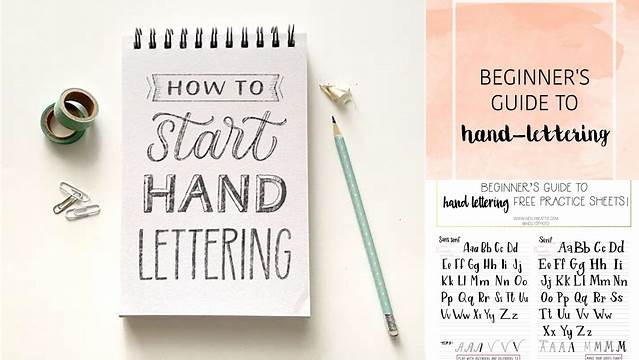
Draw Fonts By Hand: A Beginner's Guide
Hey there, font enthusiasts! Ever wanted to create your own unique fonts but felt intimidated? Well, guess what? You can totally learn how to draw fonts by hand, and this guide is here to show you how. We’ll break down the process into easy-to-follow steps, so you can start designing your own awesome typefaces in no time. Let’s dive in!
1. Understanding Font Anatomy
Before you even think about picking up a pencil, it's crucial to understand the anatomy of a font. This knowledge will serve as the foundation for your hand-drawn fonts. Think of it like learning the parts of a car before you try to build one – you need to know what everything is called and how it functions! The baseline is the imaginary line upon which most letters sit. Then you have the x-height, which is the height of the lowercase 'x' – this measurement heavily influences the overall look and feel of your font. Ascenders are the parts of lowercase letters that extend above the x-height (like the 'b', 'd', and 'h'), while descenders drop below the baseline (think 'g', 'p', and 'q'). Finally, the serif are the small decorative strokes at the end of letters in some fonts, and understanding the difference between serif, sans-serif, script, and display fonts will help you make informed design choices. Familiarizing yourself with these key elements will not only make the drawing process easier but will also allow you to create more consistent and professional-looking fonts.
2. Choosing Your Tools for Hand-Drawn Fonts
Selecting the right tools is paramount when learning how to draw fonts by hand. While you don't need fancy equipment to get started, having the right materials can significantly improve your experience and the quality of your final product. For sketching and initial designs, a simple pencil (like a 2B or HB) and a good eraser are essential. These allow you to easily make corrections and refine your letterforms. For inking, consider using fineliner pens in various sizes. Brands like Micron and Staedtler offer excellent options that provide consistent lines and archival quality ink. Alternatively, brush pens can add a dynamic and expressive touch to your fonts, especially for script or calligraphy styles. Paper choice also matters. Smooth paper is ideal for fineliners, while textured paper can add character when using brush pens. Don't forget a ruler and a set of French curves to help create consistent baselines and smooth curves. Experimenting with different tools is part of the fun, so don't be afraid to try out various pens, pencils, and papers to find what works best for you and your desired font style. Remember, the best tools are the ones that feel comfortable in your hand and help you achieve the look you're aiming for.
3. Basic Lettering Styles for Beginners
When starting out with how to draw fonts by hand, it's best to familiarize yourself with basic lettering styles. These serve as a great foundation before you delve into more complex and unique designs. Block lettering, also known as sans-serif, is a simple and clean style characterized by its uniform stroke width and lack of serifs. It's perfect for beginners because it focuses on clear, geometric shapes. Serif fonts, on the other hand, feature small decorative strokes at the end of each letter, giving them a more traditional and elegant appearance. Roman lettering is a classic serif style that's widely used in books and newspapers. Script fonts mimic handwriting and cursive styles, offering a more fluid and personal touch. They can range from elegant calligraphy to casual brush lettering. Display fonts are designed to grab attention and are often used for headlines and posters. They come in a wide variety of styles, from bold and quirky to ornate and decorative. By practicing these basic styles, you'll develop a better understanding of letterforms and the fundamental principles of typography. This knowledge will empower you to create your own unique and expressive hand-drawn fonts.
4. Sketching Your Font: Guidelines and Proportions
Before you start drawing individual letters, setting up guidelines is essential for maintaining consistency and proportion in your hand-drawn fonts. When learning how to draw fonts by hand, begin by drawing a baseline, x-height line, ascender line, and descender line. These lines will help you control the height and vertical spacing of your letters. The baseline is where the main body of your letters will sit, while the x-height determines the height of your lowercase letters. Ascenders extend above the x-height (like the top of the 'h'), and descenders extend below the baseline (like the bottom of the 'p'). Pay close attention to the proportions of your letters. The ratio between the x-height and the ascender/descender height can significantly impact the overall look of your font. Use a ruler to ensure that your guidelines are consistent and accurate. Once your guidelines are in place, lightly sketch the basic shapes of your letters, focusing on their overall form and structure. Don't worry about details at this stage; just aim for a rough outline that captures the essence of each letter. Remember, sketching is an iterative process, so don't be afraid to experiment and make adjustments until you're happy with the overall appearance of your font.
5. Refining Letterforms: Stroke Weight and Consistency
Once you have your basic letterforms sketched out, the next step is to refine them by focusing on stroke weight and consistency. Maintaining a consistent stroke weight throughout your font is crucial for a polished and professional look. When you how to draw fonts by hand, start by deciding on the desired stroke weight for your font. This will depend on the style you're aiming for – a bold font will have thicker strokes, while a light font will have thinner strokes. Use a ruler or a set of calipers to measure the stroke width of your letters and ensure that it remains consistent. Pay close attention to the curves and junctions of your letters, as these areas can be tricky to get right. Make sure that the strokes flow smoothly and that there are no abrupt changes in thickness. Use a light table or tracing paper to compare your letters and identify any inconsistencies. Refine your letterforms by adding details and correcting any errors. This is where you can really bring your font to life and give it its unique character. Remember, consistency is key, so take your time and pay attention to the details.
6. Creating Uppercase and Lowercase Alphabets
Crafting both uppercase and lowercase alphabets is a fundamental aspect of designing a complete font. When delving into how to draw fonts by hand, it's important to understand the relationship between uppercase and lowercase letters. Uppercase letters, also known as capitals, are generally larger and more ornate than their lowercase counterparts. They often serve as the visual anchors of a font, so it's important to pay close attention to their design. Lowercase letters, on the other hand, make up the bulk of most text and therefore play a crucial role in readability. When designing your uppercase and lowercase alphabets, consider the overall style and personality of your font. Do you want it to be elegant and sophisticated, or playful and whimsical? The style of your letters should reflect the overall tone you're trying to convey. Pay attention to the proportions of your letters and ensure that they are consistent with each other. The height and width of your uppercase letters should be proportional to the height of your lowercase letters. Experiment with different letterforms and try out various combinations until you find a design that you're happy with. Remember, creating a complete alphabet is a time-consuming process, so be patient and persistent. The more you practice, the better you'll become at designing beautiful and functional fonts.
7. Designing Numbers and Special Characters
Beyond letters, numbers and special characters are essential components of a fully functional font. The process of how to draw fonts by hand isn't complete without addressing these elements. Numbers should be designed to complement the style and proportions of your letters. Consider the overall aesthetic of your font and ensure that your numbers are consistent with that style. Pay attention to the height and width of your numbers and make sure they are proportional to your letters. Special characters, such as punctuation marks, symbols, and accented letters, are also important to consider. These characters can add personality and functionality to your font. Experiment with different designs and try out various combinations until you find a set of characters that you're happy with. Remember, the goal is to create a cohesive and consistent font that is both visually appealing and easy to read. Designing numbers and special characters can be a challenging but rewarding process. It's an opportunity to showcase your creativity and attention to detail. So, take your time, experiment with different ideas, and don't be afraid to push the boundaries of traditional typography.
8. Spacing and Kerning Your Hand-Drawn Font
Spacing and kerning are critical aspects of typography that greatly impact the readability and visual appeal of your font. After you how to draw fonts by hand, getting the spacing right is important. Spacing refers to the overall amount of space between letters, while kerning refers to the adjustment of space between specific pairs of letters. Proper spacing ensures that your letters are neither too crowded nor too far apart, while proper kerning ensures that the space between letters is visually balanced. When spacing your font, start by setting a general spacing value that looks comfortable and consistent across all your letters. Then, adjust the spacing between individual pairs of letters as needed. Pay particular attention to letter combinations that tend to look too crowded or too far apart, such as 'AV', 'WA', and 'TO'. Kerning is a meticulous process that requires a keen eye for detail. It's best to kern your font on a computer using professional font editing software. However, you can also practice kerning by hand by printing out your font and using a pencil to manually adjust the spacing between letters. Remember, the goal is to create a font that is both visually pleasing and easy to read. Proper spacing and kerning are essential for achieving this goal.
9. Digitizing Your Hand-Drawn Font
Digitizing your hand-drawn font is the process of converting your physical drawings into a digital format that can be used on computers and other devices. Now that you know how to draw fonts by hand, the next step is to digitize it. There are several ways to digitize your font, depending on your budget and technical skills. The simplest method is to scan your drawings and use image editing software, such as Adobe Photoshop or GIMP, to clean up the images and convert them into a vector format. However, this method can be time-consuming and may not produce the best results. A more efficient method is to use font editing software, such as FontLab Studio or Glyphs, to trace your drawings and create a digital font. These programs offer a wide range of tools and features for creating and editing fonts, including automatic tracing, kerning, and hinting. Digitizing your font can be a challenging but rewarding process. It's an opportunity to bring your hand-drawn creations to life and share them with the world. So, take your time, experiment with different techniques, and don't be afraid to ask for help if you get stuck.
10. Using Font Editing Software (FontLab, Glyphs)
Font editing software is an essential tool for any serious font designer. Programs like FontLab Studio and Glyphs offer a wide range of features and tools for creating, editing, and refining fonts. If you want to know how to draw fonts by hand and bring it to the digital world, this is how. These programs allow you to import your hand-drawn letterforms, trace them accurately, and then fine-tune their shapes and spacing. They also provide tools for kerning, hinting, and generating font files in various formats. FontLab Studio is a powerful and versatile font editor that's widely used by professional type designers. It offers a comprehensive set of features, including advanced drawing tools, automatic hinting, and support for OpenType features. Glyphs is a more streamlined and user-friendly font editor that's popular among beginners and hobbyists. It features a clean and intuitive interface, as well as a variety of helpful tools and tutorials. Using font editing software can greatly enhance the quality and efficiency of your font design process. It allows you to create professional-looking fonts that are both visually appealing and technically sound. So, if you're serious about font design, investing in font editing software is a worthwhile investment.
11. Creating Font Files (OTF, TTF)
Once you've designed and digitized your font, the next step is to create font files in a format that can be used on computers and other devices. The two most common font file formats are OTF (OpenType Font) and TTF (TrueType Font). These are important in understanding how to draw fonts by hand and actually use it. OTF is the newer and more advanced format, offering support for a wider range of features, including ligatures, alternate characters, and complex scripts. TTF is an older format that's still widely supported but lacks some of the advanced features of OTF. When creating font files, it's important to follow the proper specifications and guidelines to ensure that your font will work correctly on different operating systems and applications. Font editing software typically provides tools for generating font files in both OTF and TTF formats. These tools allow you to specify various settings, such as the font name, version number, and copyright information. Creating font files is a crucial step in the font design process. It's the culmination of all your hard work and creativity, and it allows you to share your font with the world.
12. Testing Your Font for Readability
Before you release your font to the world, it's important to test it thoroughly for readability. A font may look beautiful, but if it's difficult to read, it won't be very useful. Knowing how to draw fonts by hand means also knowing how to make it readable. Readability refers to how easily the letters can be distinguished from each other and how comfortable the text is to read. There are several factors that can affect readability, including the letterforms, spacing, kerning, and contrast. To test your font for readability, try using it in a variety of different contexts, such as body text, headlines, and captions. Print out samples of your font in different sizes and styles and ask other people to read them. Pay attention to any feedback you receive and make adjustments to your font as needed. You can also use online tools and resources to evaluate the readability of your font. These tools can analyze various aspects of your font, such as its x-height, stroke weight, and contrast ratio. Testing your font for readability is an essential step in the font design process. It helps you identify any potential problems and ensures that your font is both visually appealing and easy to read.
13. Adding Ligatures and Alternate Characters
Ligatures and alternate characters are special glyphs that can add personality and functionality to your font. When you how to draw fonts by hand, this is an important aspect. Ligatures are combinations of two or more letters that are joined together to create a single glyph. They are often used to improve the appearance of letter combinations that tend to look awkward or crowded, such as 'fi', 'fl', and 'ff'. Alternate characters are variations of existing glyphs that offer different stylistic options. They can be used to add a touch of flair or to provide a more traditional or historical look. Adding ligatures and alternate characters to your font can be a time-consuming process, but it can also be very rewarding. It's an opportunity to showcase your creativity and attention to detail. Font editing software typically provides tools for creating and managing ligatures and alternate characters. These tools allow you to define the glyph combinations and specify the conditions under which they should be displayed. When designing ligatures and alternate characters, it's important to consider the overall style and personality of your font. The new glyphs should complement the existing letterforms and enhance the overall aesthetic.
14. Exploring Different Font Styles (Serif, Sans-Serif, Script)
Exploring different font styles is a great way to expand your knowledge of typography and discover new creative possibilities. Serif, sans-serif, and script are three of the most common and widely used font styles. When considering how to draw fonts by hand, knowing the styles is very important. Serif fonts are characterized by the small decorative strokes at the end of each letter. They tend to have a more traditional and formal appearance and are often used for body text in books and newspapers. Sans-serif fonts, on the other hand, lack these decorative strokes and have a cleaner, more modern look. They are often used for headlines, captions, and web design. Script fonts mimic handwriting and cursive styles, offering a more fluid and personal touch. They can range from elegant calligraphy to casual brush lettering and are often used for invitations, logos, and decorative purposes. Each font style has its own unique characteristics and conveys a different mood and tone. By experimenting with different styles, you can develop a better understanding of typography and learn how to choose the right font for any given project. You can also combine different styles to create unique and interesting designs.
15. Creating Display Fonts for Headlines and Posters
Display fonts are designed to grab attention and make a statement. They are often used for headlines, posters, logos, and other applications where visual impact is important. To how to draw fonts by hand for display, consider the design. Display fonts come in a wide variety of styles, from bold and quirky to ornate and decorative. They tend to be more expressive and unconventional than body text fonts. When designing a display font, it's important to consider the overall message you want to convey and the target audience you're trying to reach. The font should be visually appealing, easy to read (at least at larger sizes), and consistent with the overall brand or design. Experiment with different letterforms, stroke weights, and decorative elements to create a font that stands out from the crowd. You can also incorporate ligatures, alternate characters, and other special glyphs to add personality and flair. Remember, display fonts are all about making a visual impact, so don't be afraid to push the boundaries of traditional typography.
16. Designing Fonts for Specific Purposes (Web, Print)
When designing fonts, it's important to consider the specific purpose for which they will be used. Fonts that are designed for web use have different requirements than fonts that are designed for print. Understanding how to draw fonts by hand for the web or print matters. Web fonts need to be optimized for on-screen display and should be legible at smaller sizes. They should also be available in a format that is compatible with different web browsers and operating systems. Print fonts, on the other hand, need to be optimized for high-resolution printing and should have smooth outlines and consistent stroke weights. They should also be available in a format that is compatible with different printing devices and software. When designing web fonts, it's important to consider the font's x-height, contrast, and spacing. A larger x-height, higher contrast, and wider spacing can improve legibility on screen. When designing print fonts, it's important to consider the font's stroke weight, serif style, and overall design. A heavier stroke weight, more pronounced serifs, and a more traditional design can improve readability in print.
17. Understanding Copyright and Font Licensing
Copyright and font licensing are important legal considerations for font designers. Copyright protects the intellectual property rights of the font designer, while font licensing grants permission to use the font under specific terms and conditions. It's important to know how to draw fonts by hand and protect it. As a font designer, you automatically own the copyright to your fonts as soon as you create them. This means that you have the exclusive right to reproduce, distribute, and modify your fonts. However, you can also grant permission to others to use your fonts by issuing a font license. Font licenses can be either commercial or non-commercial. Commercial licenses allow the licensee to use the font for commercial purposes, such as in advertising, marketing, and product design. Non-commercial licenses, on the other hand, allow the licensee to use the font for personal or non-profit purposes only. When creating a font license, it's important to clearly specify the terms and conditions of use, including the permitted uses, restrictions, and fees. You should also consult with an attorney to ensure that your font license is legally sound.
18. Selling Your Hand-Drawn Fonts Online
If you're a talented font designer, you can make money by selling your hand-drawn fonts online. There are several online marketplaces and platforms where you can sell your fonts, such as MyFonts, Creative Market, and Fontspring. When you how to draw fonts by hand and sell them, there are many benefits. To sell your fonts online, you'll need to create a font package that includes the font files, a license agreement, and a description of the font. You'll also need to set a price for your font and choose a payment method. When pricing your font, it's important to consider the quality of your font, the demand for similar fonts, and the prices of competing fonts. You should also factor in your own costs, such as the cost of font editing software and marketing expenses. To promote your fonts online, you can use social media, online advertising, and email marketing. You can also participate in online forums and communities related to font design. Selling your fonts online can be a great way to earn passive income and share your creative work with the world.
19. Building a Font Design Portfolio
Building a font design portfolio is essential for showcasing your skills and attracting potential clients. A font design portfolio is a collection of your best font designs that demonstrates your creativity, technical skills, and understanding of typography. You can learn how to draw fonts by hand and show it off in a portfolio. To build a font design portfolio, start by selecting your best font designs. Choose fonts that represent a variety of styles and applications, such as body text fonts, display fonts, and script fonts. For each font, create a visually appealing presentation that includes the font's name, a brief description, and examples of the font in use. You can also include technical details, such as the font's character set, kerning pairs, and OpenType features. You can present your font design portfolio online, in print, or both. An online portfolio allows you to reach a wider audience and showcase your work in a dynamic and interactive way. A print portfolio allows you to present your work in a tangible and professional format. To promote your font design portfolio, you can use social media, online advertising, and email marketing. You can also participate in online forums and communities related to font design.
20. Staying Inspired: Following Font Designers and Trends
Staying inspired is crucial for maintaining your creativity and developing your skills as a font designer. To stay inspired, follow other font designers, keep up with the latest trends in typography, and explore different sources of inspiration. When learning how to draw fonts by hand, inspiration is important. Follow font designers whose work you admire and study their techniques and styles. Pay attention to the fonts they use in their own designs and analyze what makes them effective. Keep up with the latest trends in typography by reading design blogs, magazines, and websites. Attend design conferences and workshops to learn about new technologies and techniques. Explore different sources of inspiration, such as nature, architecture, art, and music. Look for interesting shapes, patterns, and textures that you can incorporate into your font designs. By staying inspired, you can continuously improve your skills and create innovative and original fonts.
21. The Importance of Practice and Experimentation
Practice and experimentation are the cornerstones of mastering any skill, and font design is no exception. The more you practice drawing letters and experimenting with different styles, the better you'll become at creating unique and expressive fonts. If you want to how to draw fonts by hand, the best advice is practice. Set aside time each day to practice drawing letters, even if it's just for a few minutes. Try different styles, such as serif, sans-serif, and script. Experiment with different tools and techniques, such as pencils, pens, brushes, and digital drawing tablets. Don't be afraid to make mistakes and learn from them. The more you experiment, the more you'll discover your own unique style and voice as a font designer. Practice and experimentation are essential for developing your skills and achieving your full potential as a font designer.
22. Collaborating with Other Designers
Collaborating with other designers can be a rewarding and enriching experience. It allows you to learn from others, share your knowledge, and create something that is greater than the sum of its parts. When you how to draw fonts by hand, it's nice to have help. When collaborating with other designers, it's important to establish clear roles and responsibilities. Define the goals of the project and the timeline for completion. Communicate openly and honestly with your collaborators and be willing to compromise. Give and receive constructive feedback and be respectful of each other's opinions. Collaborating with other designers can help you expand your skills, broaden your perspective, and create more innovative and impactful font designs.
23. Common Mistakes to Avoid When Drawing Fonts
When drawing fonts, there are several common mistakes that you should avoid. These mistakes can detract from the overall quality and readability of your font. When you first learn how to draw fonts by hand there are many mistakes to avoid. One common mistake is inconsistent stroke weights. Make sure that the stroke weights of your letters are consistent throughout the font. Another common mistake is poor spacing and kerning. Pay attention to the spacing between letters and adjust the kerning as needed to ensure that the text is easy to read. Another mistake is inconsistent letter heights. Make sure that the x-height and cap height of your letters are consistent throughout the font. Another mistake is using too many decorative elements. Avoid using too many serifs, swashes, or other decorative elements, as this can make the font look cluttered and difficult to read. By avoiding these common mistakes, you can create fonts that are both visually appealing and highly readable.
24. Resources for Learning More About Typography
There are many resources available for learning more about typography. These resources can help you improve your skills and deepen your understanding of the art and science of font design. To how to draw fonts by hand, you need to understand typography. Some popular resources include books, websites, online courses, and workshops. Books on typography can provide a comprehensive overview of the subject, covering topics such as letterforms, spacing, kerning, and font design. Websites on typography can offer a wealth of information, including articles, tutorials, and examples of good and bad typography. Online courses and workshops can provide hands-on training in font design, taught by experienced professionals. By taking advantage of these resources, you can expand your knowledge of typography and become a more skilled and confident font designer.
25. The Future of Hand-Drawn Fonts
The future of hand-drawn fonts is bright. With the rise of digital technology, hand-drawn fonts are becoming increasingly popular for a variety of applications, such as web design, graphic design, and illustration. How to draw fonts by hand gives a special feel. Hand-drawn fonts offer a unique and personal touch that is often lacking in commercially available fonts. They can be used to create a more authentic and human feel in designs. As technology continues to evolve, we can expect to see even more innovative and creative uses for hand-drawn fonts. With the help of digital tools, font designers can create fonts that are more versatile and expressive than ever before.
26. Creating a Cohesive Typeface Family
Developing a cohesive typeface family is an advanced skill that involves designing multiple variations of a single font, each with its own distinct weight, width, and style. Creating a consistent family is important to how to draw fonts by hand. These variations are designed to work together harmoniously, providing designers with a versatile toolkit for creating visually appealing and functional typography. Creating a cohesive typeface family requires careful planning and attention to detail. It's important to establish a clear design concept and to maintain consistency in letterforms, spacing, and kerning across all variations. You should also consider the intended uses of the typeface family and design the variations accordingly. For example, a typeface family designed for body text might include light, regular, and bold weights, while a typeface family designed for display use might include a wider range of styles, such as condensed, expanded, and italic.
27. Mastering Calligraphy Techniques for Font Design
Calligraphy is the art of beautiful handwriting. Mastering calligraphy techniques can greatly enhance your skills as a font designer, allowing you to create more expressive and elegant letterforms. You can learn how to draw fonts by hand from calligraphy. To master calligraphy techniques, start by learning the basics of letterforms and stroke construction. Practice different calligraphy styles, such as Copperplate, Spencerian, and Italic. Pay attention to the rhythm and flow of the strokes and experiment with different tools and materials. You can also study the work of master calligraphers and analyze their techniques. By mastering calligraphy techniques, you can develop a deeper understanding of letterforms and create fonts that are both beautiful and functional.
28. Incorporating Texture and Effects into Hand-Drawn Fonts
Adding texture and effects to your hand-drawn fonts can add depth, character, and visual interest. Texture can be used to create a more rustic or vintage feel, while effects can be used to add emphasis or highlight specific elements. When you how to draw fonts by hand, adding textures and effects can be fun. There are many ways to incorporate texture and effects into your hand-drawn fonts. You can use digital tools, such as Photoshop or Illustrator, to add textures and effects to your fonts. You can also use traditional techniques, such as scanning in hand-drawn textures or using different types of paper. Experiment with different textures and effects to create fonts that are unique and visually appealing. Just be careful not to overdo it, as too much texture or too many effects can make the font look cluttered and difficult to read.
29. Optimizing Fonts for Different Screen Resolutions
Optimizing fonts for different screen resolutions is crucial for ensuring that your fonts look crisp and clear on all devices. Screen resolution refers to the number of pixels that are displayed on a screen. Higher screen resolutions result in sharper and more detailed images. To how to draw fonts by hand for different resolutions, you need to consider things. To optimize your fonts for different screen resolutions, you need to consider factors such as hinting, anti-aliasing, and subpixel rendering. Hinting is a technique that is used to adjust the letterforms of a font so that they align with the pixel grid. Anti-aliasing is a technique that is used to smooth the edges of letterforms and reduce jaggedness. Subpixel rendering is a technique that is used to take advantage of the individual red, green, and blue subpixels on a screen to improve the appearance of letterforms. By optimizing your fonts for different screen resolutions, you can ensure that they look their best on all devices.
30. Staying Up-to-Date with Font Technology and Trends
Staying up-to-date with font technology and trends is essential for remaining competitive and relevant in the ever-evolving world of font design. New technologies and trends are constantly emerging, and it's important to stay informed so that you can adapt your skills and techniques accordingly. To how to draw fonts by hand and stay relevant, stay updated. To stay up-to-date with font technology and trends, read design blogs, magazines, and websites. Attend design conferences and workshops. Follow font designers and typographers on social media. Experiment with new tools and techniques. By staying up-to-date, you can continuously improve your skills and create fonts that are both innovative and visually appealing.